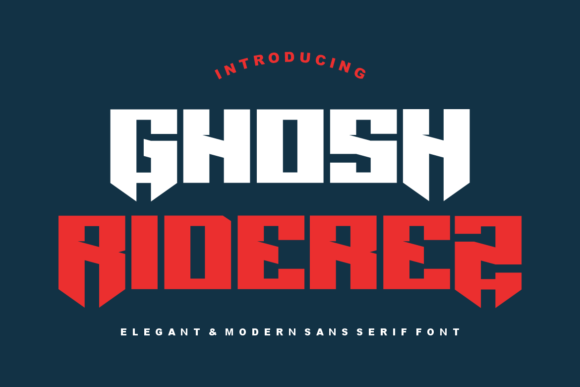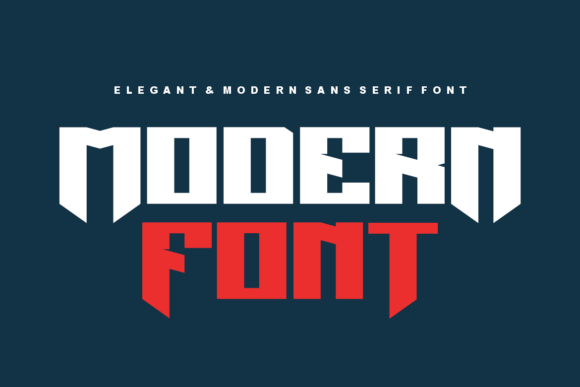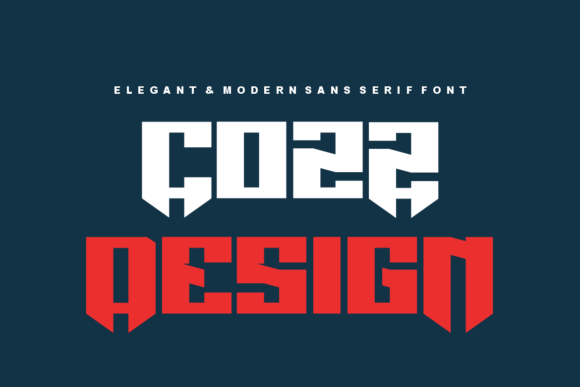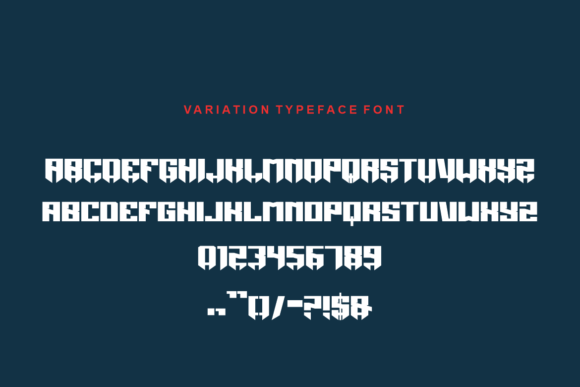
Ghosh Riderez Font: Bold Sans Serif for Modern Logo Design & Branding
About the Ghosh Riderez Font
The Ghosh Riderez Font is here to transform your projects with its distinctive character and style. Ghosh Riderezt – Modern, bold, and authentic sans serif font. The font is suitable for any branding project like logo, t-shirt printing, esports, and many more. It will look outstanding in a wide range of contexts.
Ghosh Riderez excels in headlines, logos, and short, impactful text for branding and posters. Its bold structure commands attention, making it ideal for projects needing a strong visual presence. However, its weight and condensed nature make it unsuitable for body text or UI elements requiring high readability over extended lengths.
The font’s modern and assertive personality pairs well with clean sans-serif fonts like Montserrat for a balanced contrast, or a playful script like Pacifico for a more dynamic feel. For a sophisticated approach, consider pairing it with a geometric sans-serif like Futura for a structured and contemporary aesthetic.
Ghosh Riderez’s core personality is bold and assertive, conveying modernity and confidence. It’s best suited to brands projecting strength, innovation, or a rebellious spirit.